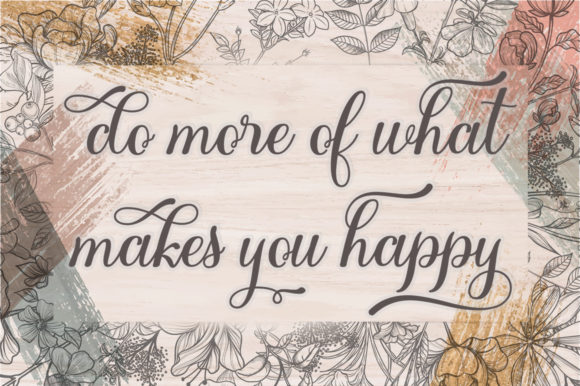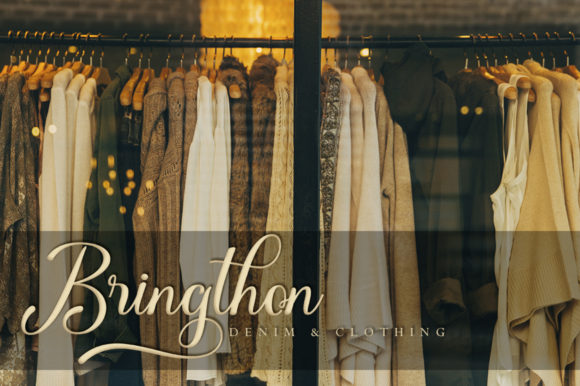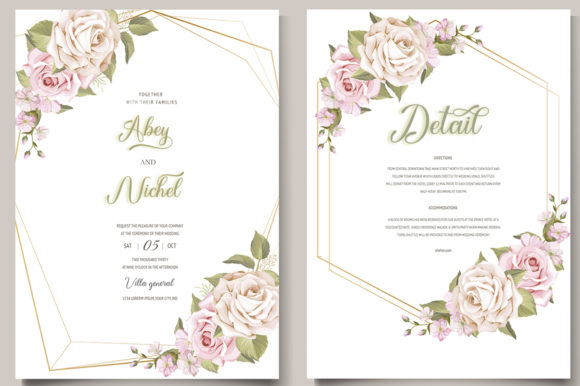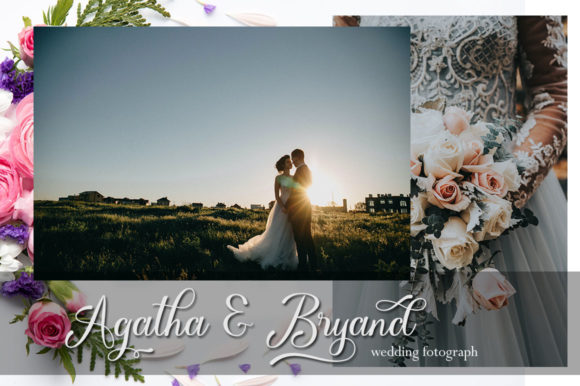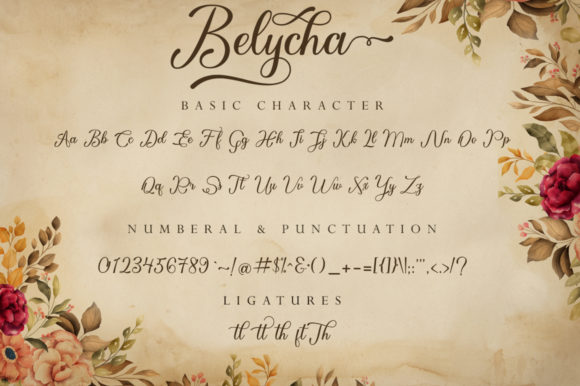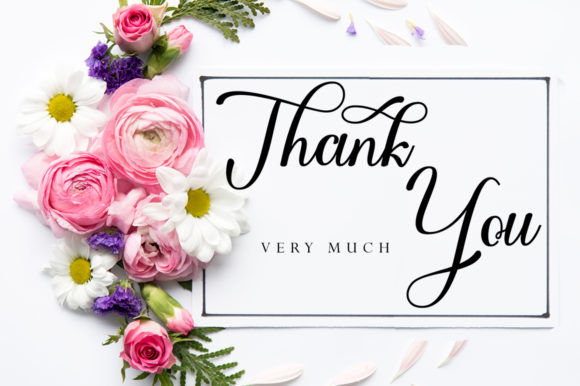
Belycha Font
About Belycha Font
Belycha, the epitome of elegance and grace, is a handwritten font that effortlessly blends classic calligraphy with a contemporary twist. Its flowing lines and carefully crafted details make it a timeless choice for a wide array of design projects. From the moment you lay eyes on Belycha, you’ll be captivated by its ability to add a touch of sophistication to every project it graces.
What sets Belycha apart is not only its exquisite design but also its versatility. This font seamlessly transitions between various design contexts, adapting to each one with finesse. Whether you’re working on wedding invitations that deserve a touch of opulence, creating a branding identity that exudes professionalism, or designing elegant quotes that inspire and captivate, Belycha is the perfect companion.
The PUA encoding of Belycha is a hidden gem that enhances your design experience. With easy access to a treasure trove of glyphs and swashes, you have the power to infuse your projects with a level of customization that’s truly unparalleled. This opens up a world of creative possibilities, allowing you to tailor every curve and line to match your vision perfectly.
Belycha’s contemporary twist elevates it to new heights, ensuring it remains relevant and appealing in modern design landscapes. Its fusion of traditional calligraphic influences and fresh, modern aesthetics makes it a font that resonates with a diverse range of audiences. Whether your audience is captivated by classic beauty or modern elegance, Belycha bridges the gap with ease.
Imagine Belycha gracing your wedding invitations, lending an air of sophistication and charm that sets the tone for a memorable celebration. Envision it adorning your brand’s logo, imparting a sense of refinement and trustworthiness that resonates with your target audience. Picture it enhancing quotes and messages, captivating readers with its graceful curves and impeccable style.
Every stroke of Belycha is a testament to its meticulous craftsmanship. The varying baseline and smooth lines create a sense of movement that guides the eye, making your designs not only visually pleasing but also engaging and captivating. Its timeless elegance ensures that your projects stand the test of time, leaving a lasting impression on anyone who encounters them.
With Belycha as your creative companion, you’re equipped to take your projects to the highest levels of sophistication. This font doesn’t just add beauty to your designs; it elevates them, imbuing them with a sense of class and refinement that’s hard to overlook. Belycha is more than a font; it’s a tool that empowers you to create designs that are both visually stunning and emotionally resonant.
So, fall in love with Belycha and experience the transformative power it brings to your creative projects. Whether you’re designing wedding materials, branding identities, quotes, or any other visual content, Belycha’s elegant and flowing nature will breathe life into your work. Let it be the driving force that propels your projects to new heights of excellence.